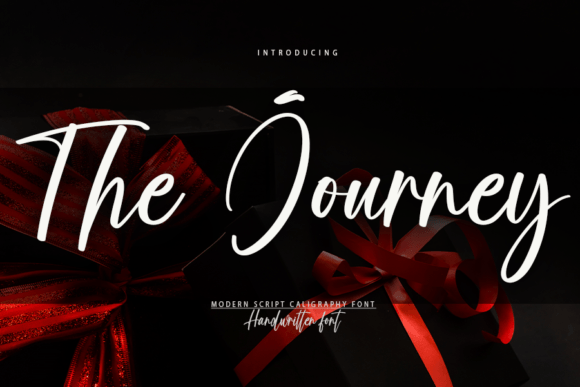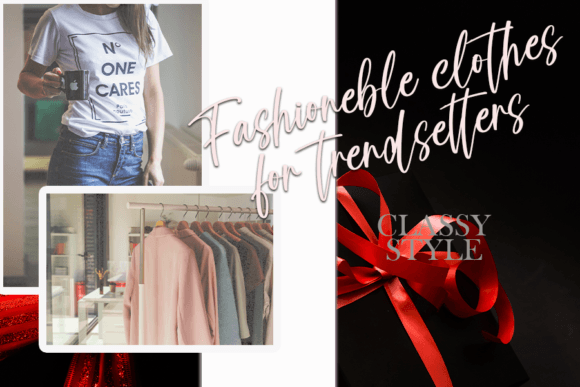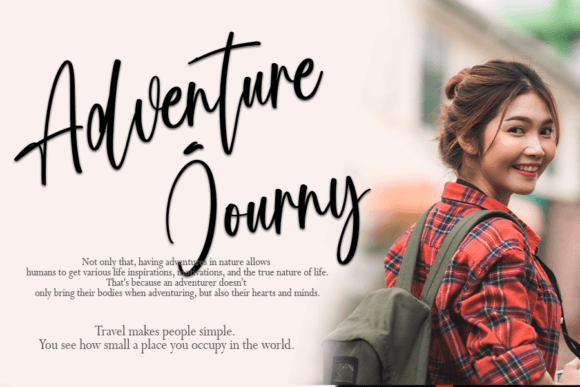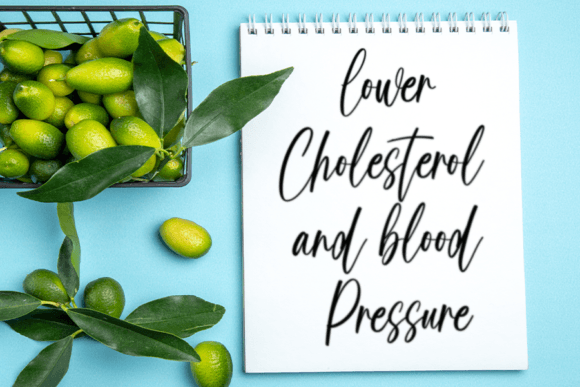
A Stylish Handwritten Typeface with Timeless Charm
The Journey Font is a stylish handwritten script that combines a contemporary atmosphere with the elegance of timeless classic calligraphy. Its impeccable form and balanced letterforms make this font ideal for adding a refined, artistic touch to your creative projects. Whether you’re designing wedding invitations, logos, branding materials, or social media content, the The Journey Font offers a perfect blend of sophistication and modern appeal, ensuring your designs stand out.
Perfect for Wedding Invitations and Special Occasions
For wedding invitations and special occasion stationery, the The Journey Font is an ideal choice. Whether you’re designing RSVP cards, thank-you notes, or save-the-dates, this font adds an elegant and romantic touch to your designs. Its calligraphy-inspired strokes bring a sense of luxury and timeless appeal, making it perfect for weddings, anniversaries, and other special celebrations. The The Journey Font ensures your special occasion materials feel both charming and sophisticated.
Ideal for Logos and Branding Projects
For logos and branding projects, the The Journey Font offers a unique and refined style that enhances your brand identity. Whether you’re working on a luxury brand logo, personal brand, or corporate materials, this font provides a stylish handwritten look that makes your brand stand out. The The Journey Font is perfect for industries such as fashion, beauty, and lifestyle, where a personalized, high-end feel is essential to your brand’s success.
Great for Greeting Cards and Invitations
For greeting cards and invitations, the The Journey Font adds a romantic and elegant touch to your designs. Whether you’re designing birthday cards, thank-you notes, or holiday greetings, this font ensures your cards feel luxurious and personalized. The balanced and beautifully varied characters create a perfect look for both formal and casual occasions, making your designs stand out with a timeless, artistic appeal.
Ideal for Product Packaging and Labels
For product packaging and labels, the The Journey Font brings a premium and refined look to your branding materials. Whether you’re designing product labels, gift packaging, or seasonal items, this font provides a personalized and luxurious touch that makes your products feel exclusive and elegant. The The Journey Font is perfect for artisan goods, luxury products, and custom gifts, ensuring your packaging stands out on the shelf with a sophisticated appeal.
Versatile, Legible, and Elegant
Despite its elegant handwritten design, the The Journey Font remains legible and easy to use. Its well-spaced characters and consistent strokes ensure that your text remains clear and readable, even for longer passages or smaller sizes. Whether you’re using it for headlines, captions, or body text, this font strikes the perfect balance between creativity and readability, making it suitable for a wide range of design applications from print to digital media.
The The Journey Font is easy to use and integrates smoothly into most design software. Whether you’re working on wedding invitations, logos, greeting cards, or social media content, this font ensures your designs look polished and professional while maintaining a personalized touch. Its versatility makes it perfect for both print and digital media, giving you the flexibility to use it across various projects with ease.
Add Elegance and Timeless Beauty to Your Designs with The Journey Font
If you’re looking for a stylish handwritten font that adds a timeless, elegant touch to your designs, the The Journey Font is the perfect choice. Whether you’re designing wedding invitations, logos, greeting cards, or social media posts, this font will help you create memorable, refined designs that stand out. Let the The Journey Font bring a graceful, artistic touch to your projects and leave a lasting impression with its elegance and sophistication.